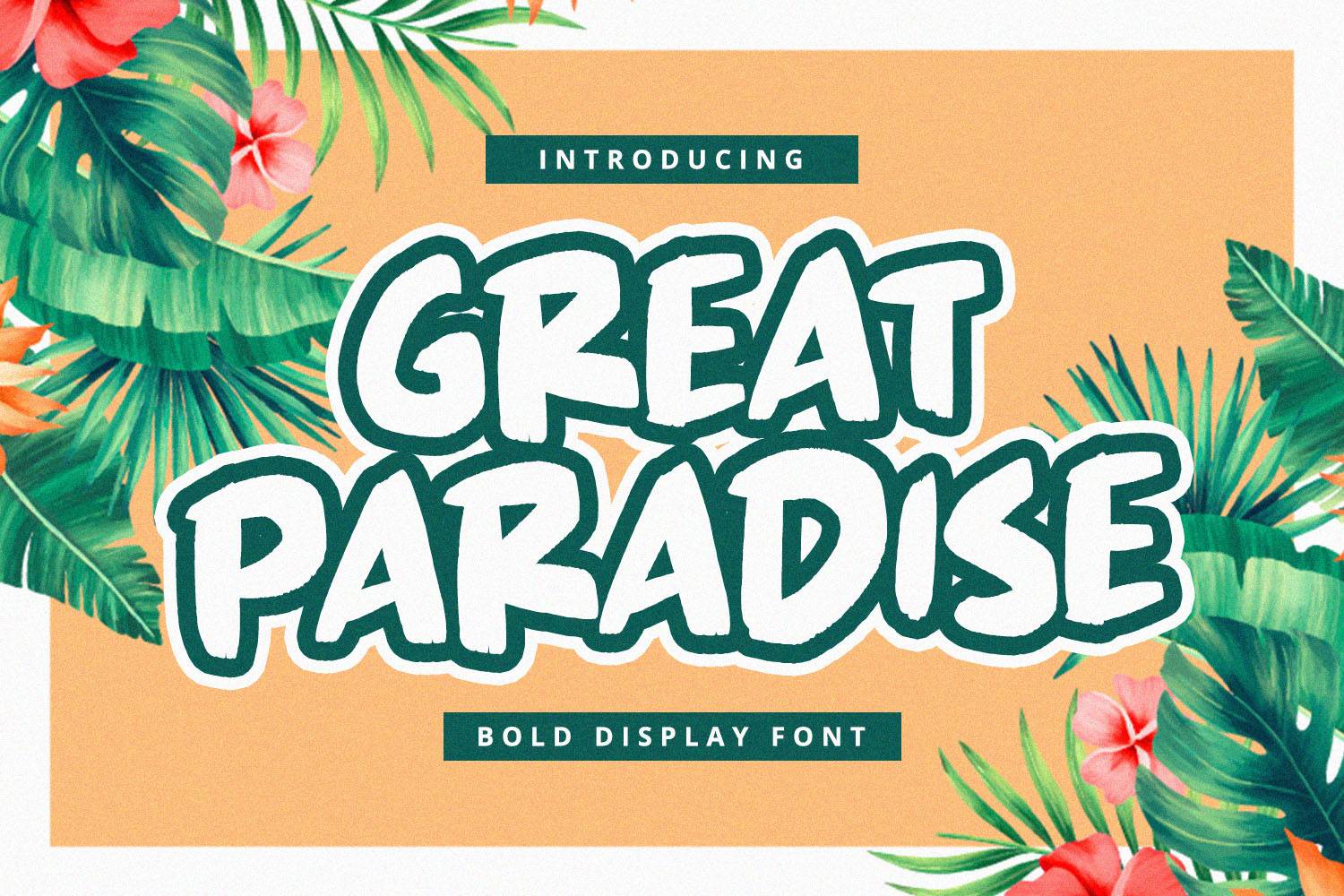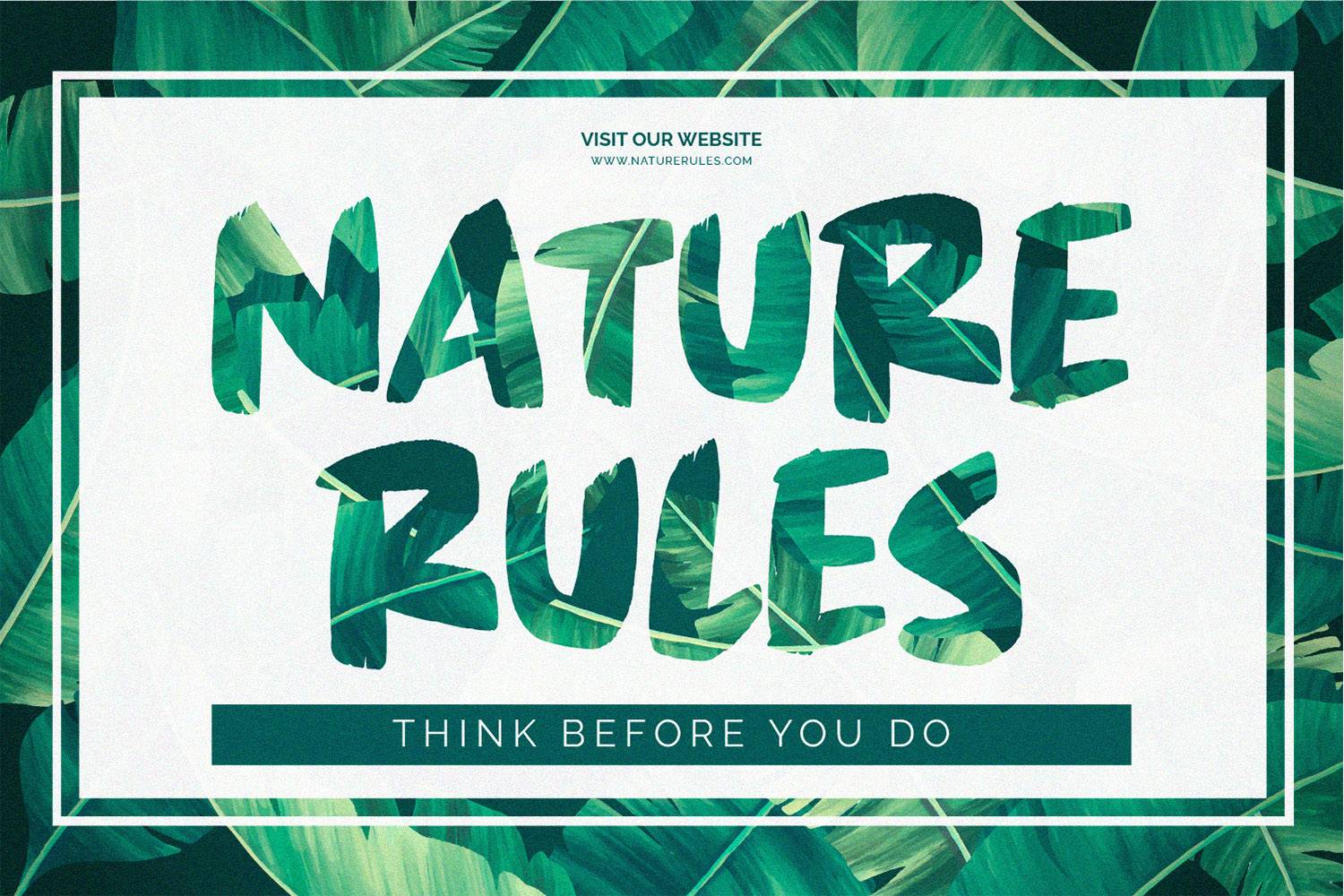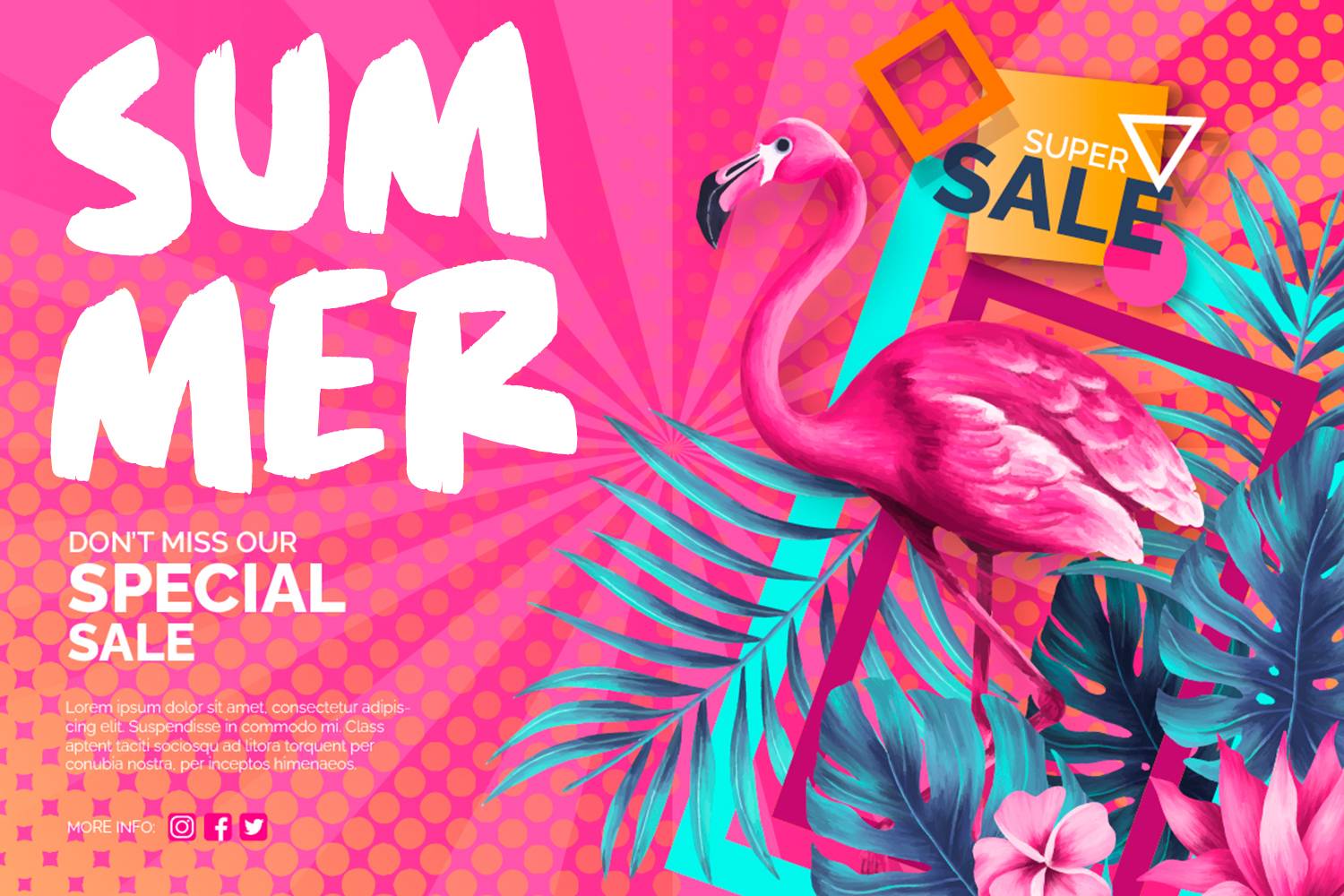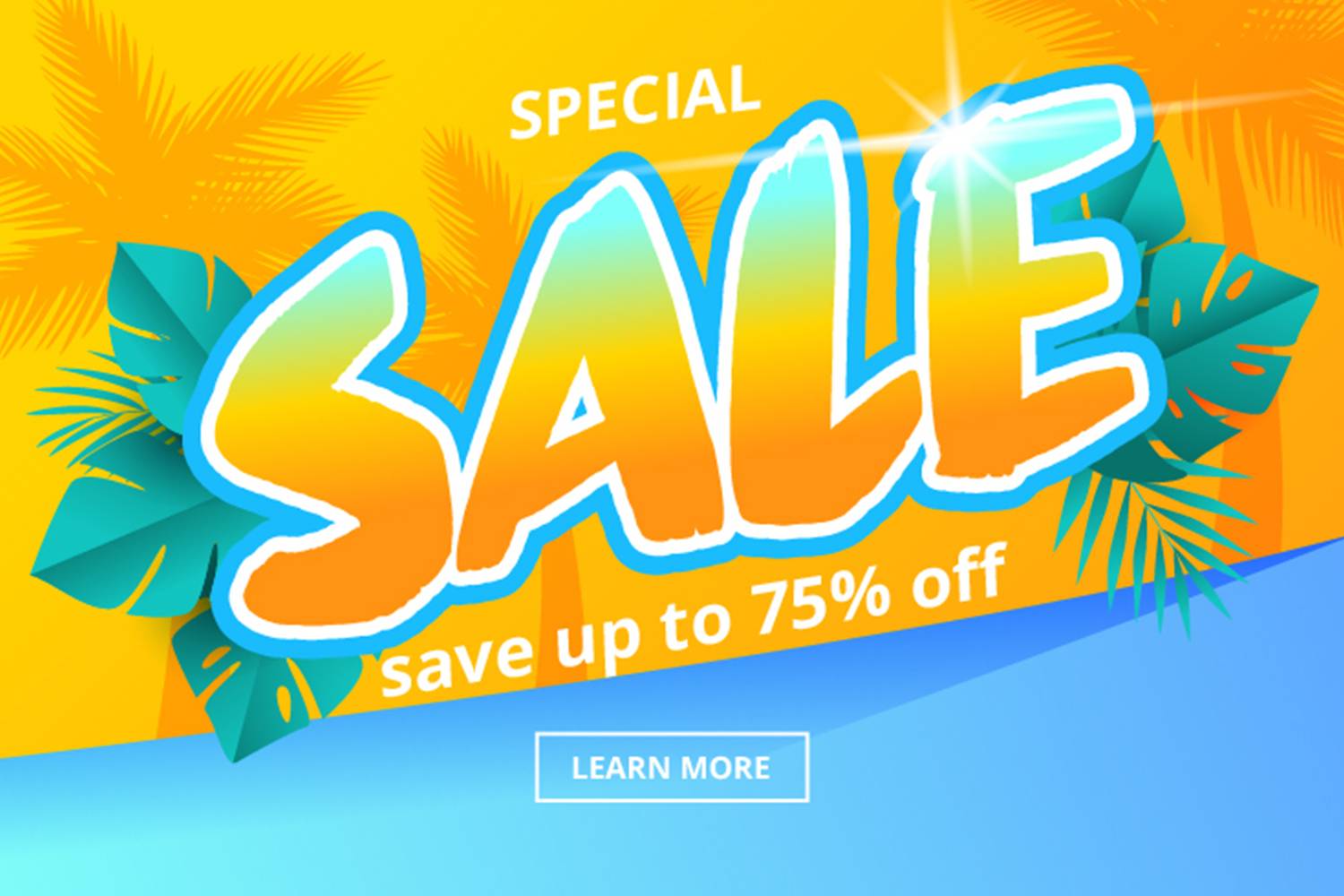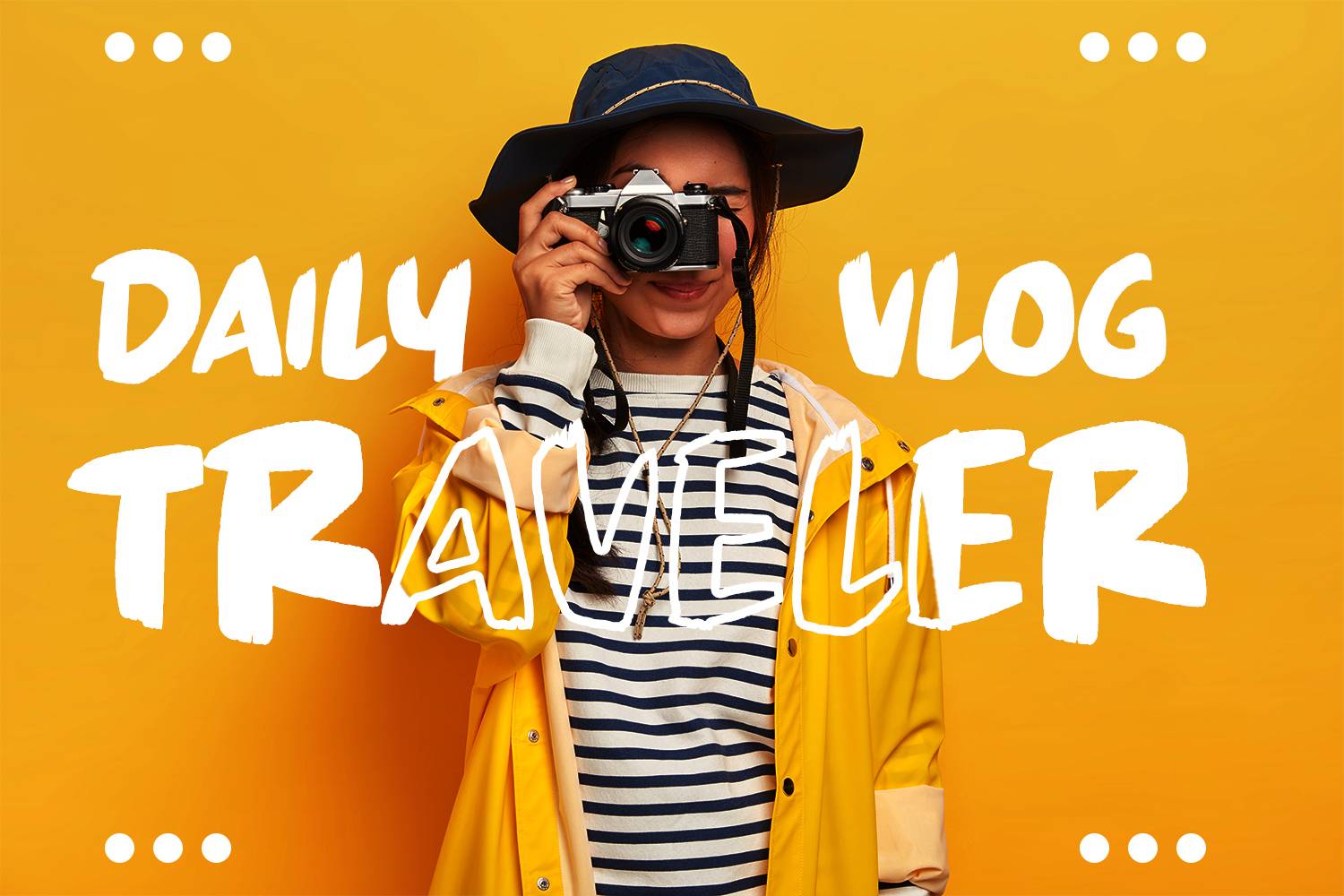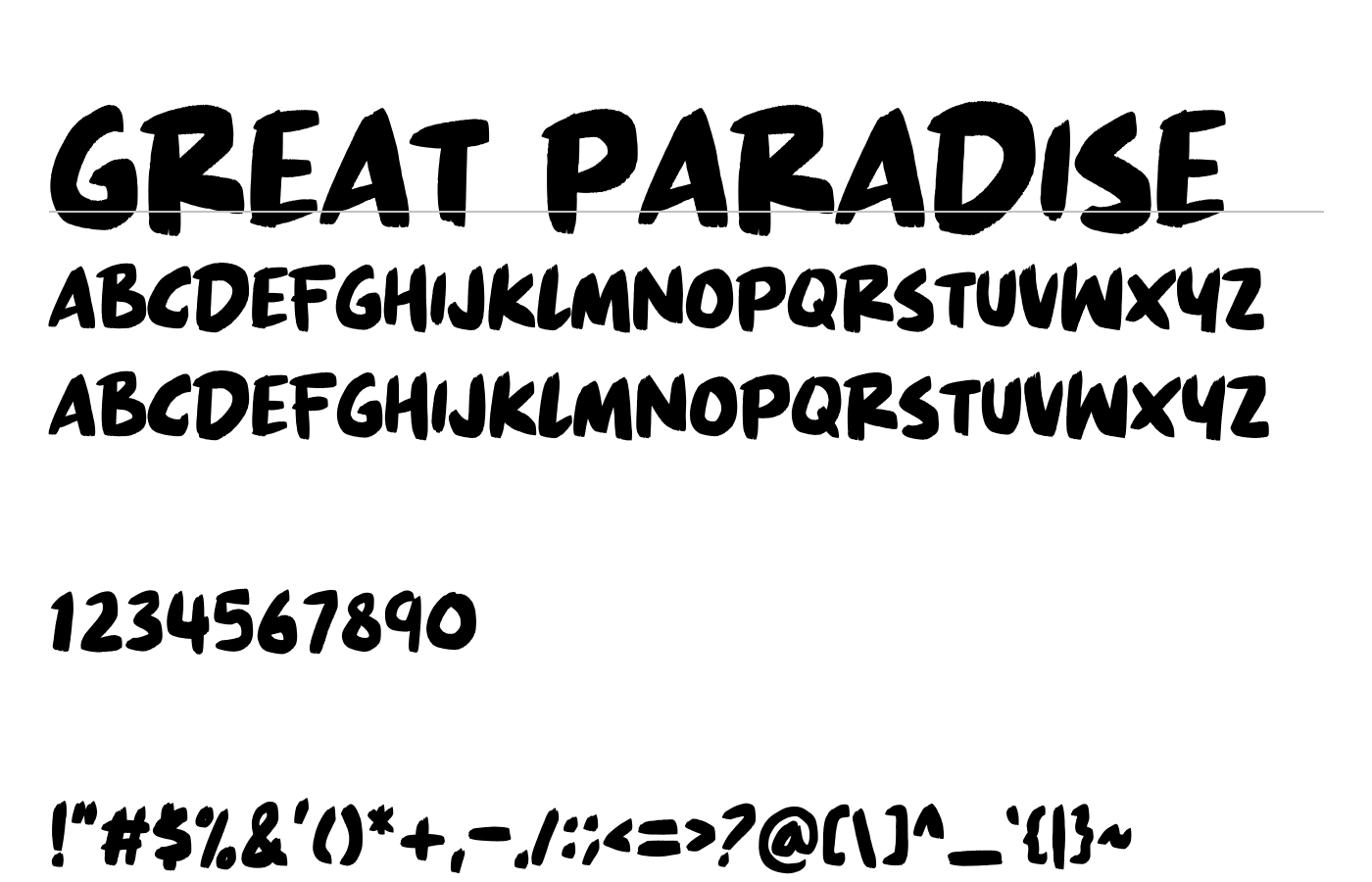
Great Paradise is a bold, playful sans serif font with a hand-painted brush style that gives it an energetic and casual feel. Its wide, chunky letterforms and slightly uneven edges make it perfect for fun, eye-catching headlines, logos, or creative projects that want to convey friendliness and spontaneity. This font works best in informal settings like posters, branding for youth-oriented products, or any design needing a lively and approachable vibe.
Great Paradise Font
About Great Paradise Font